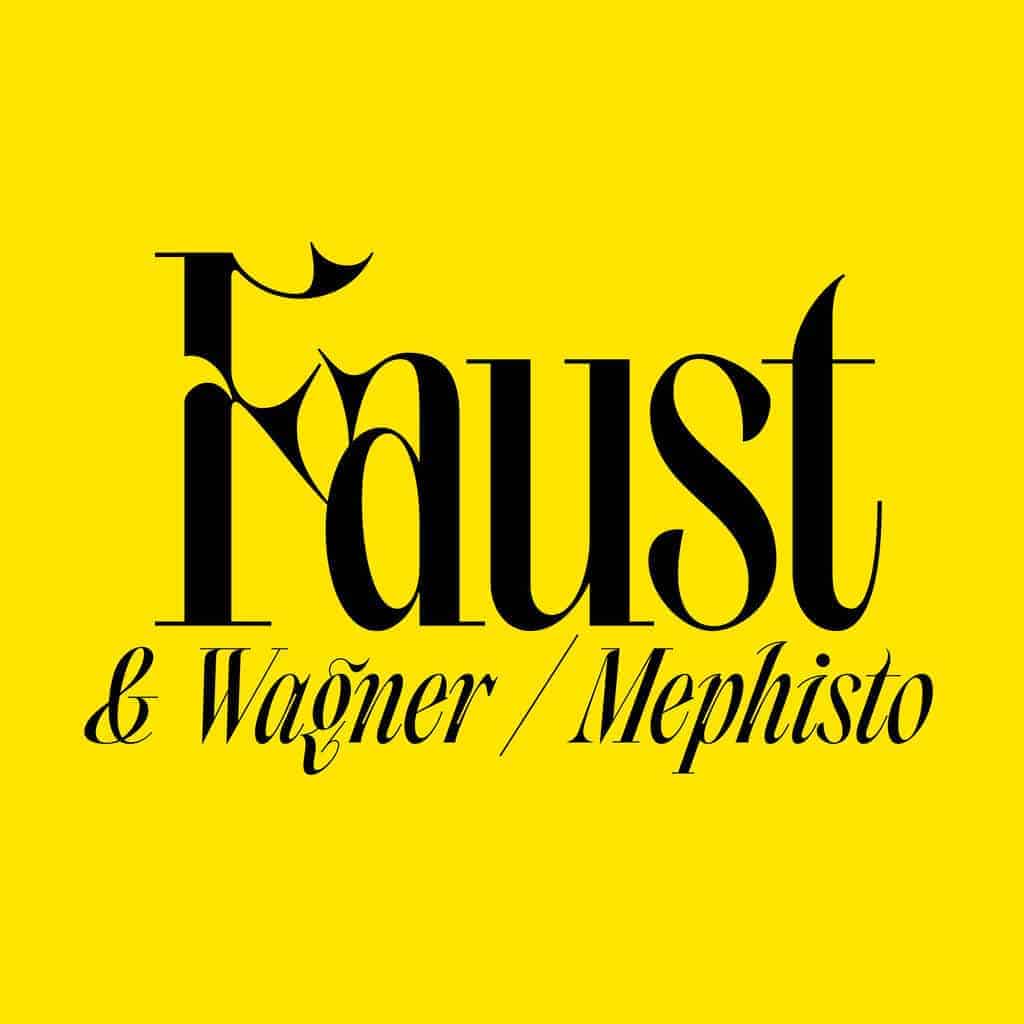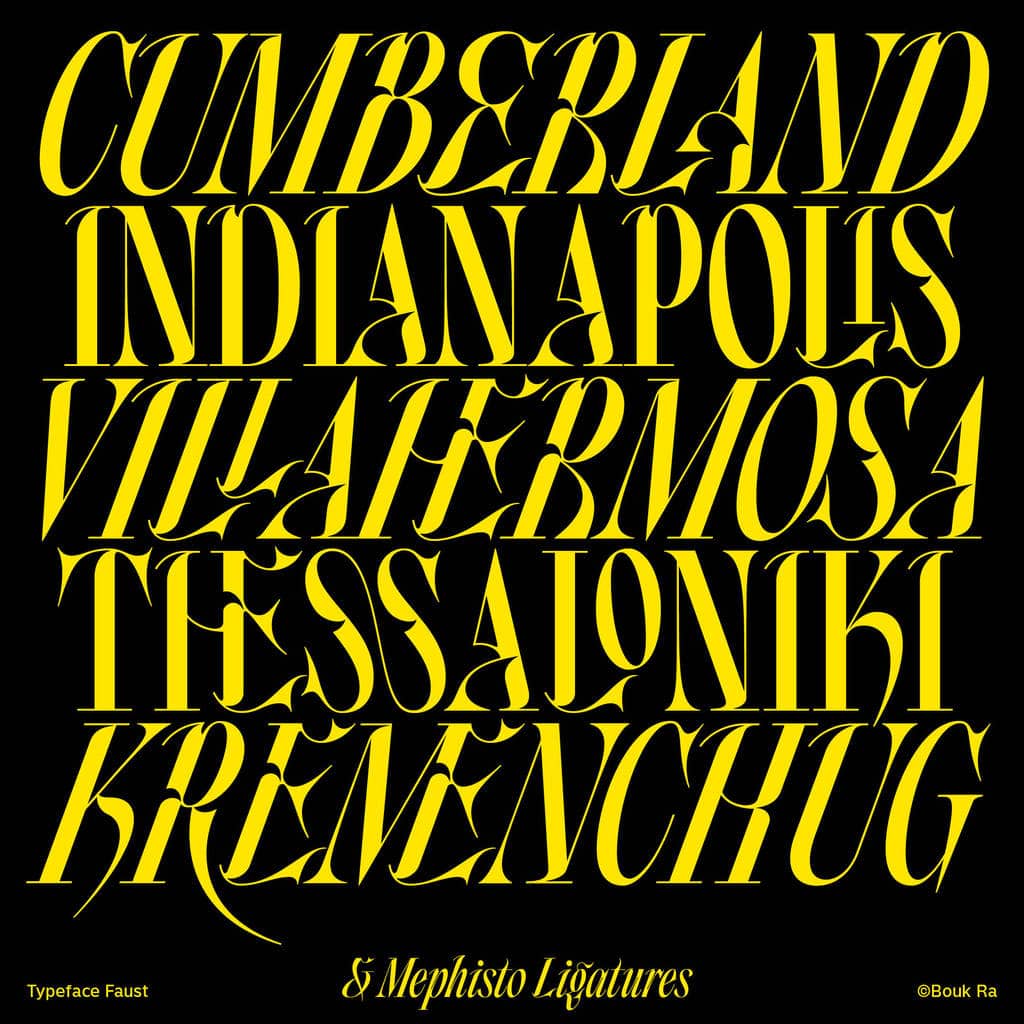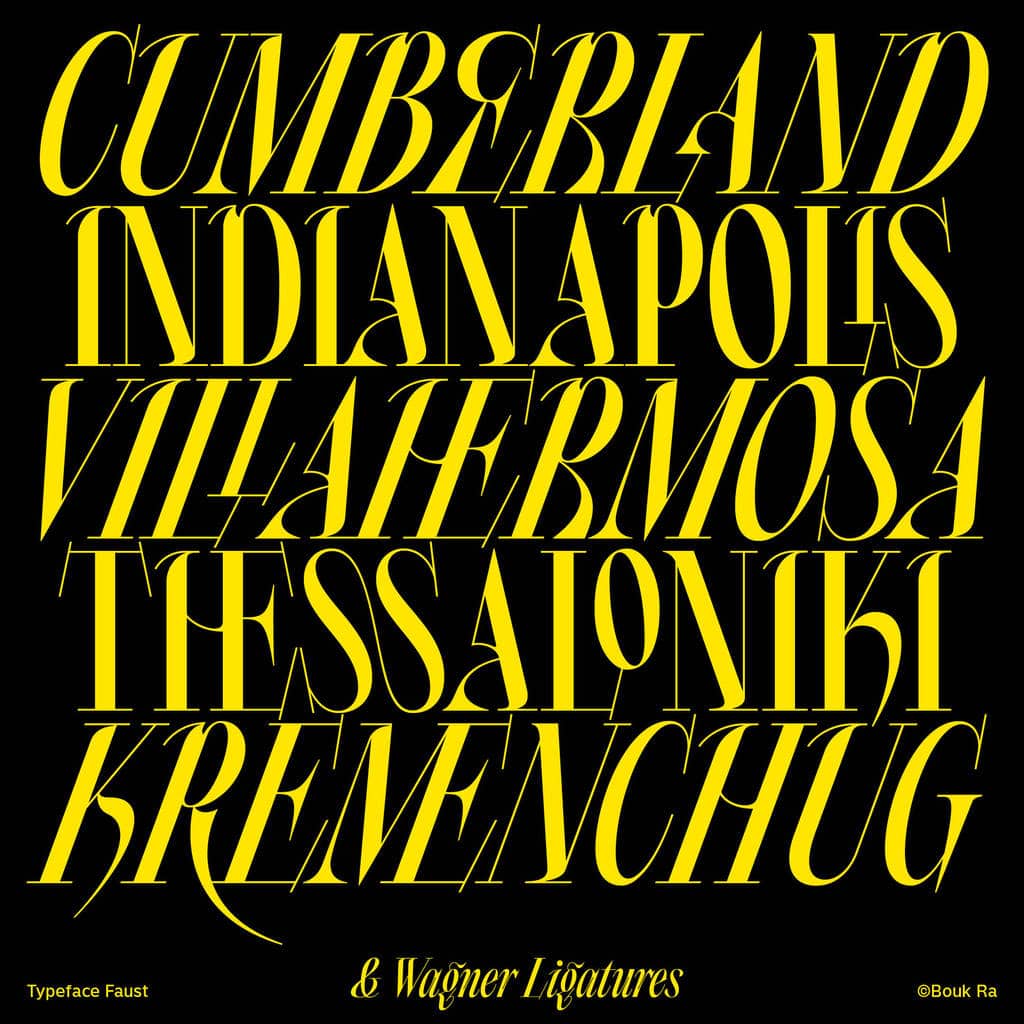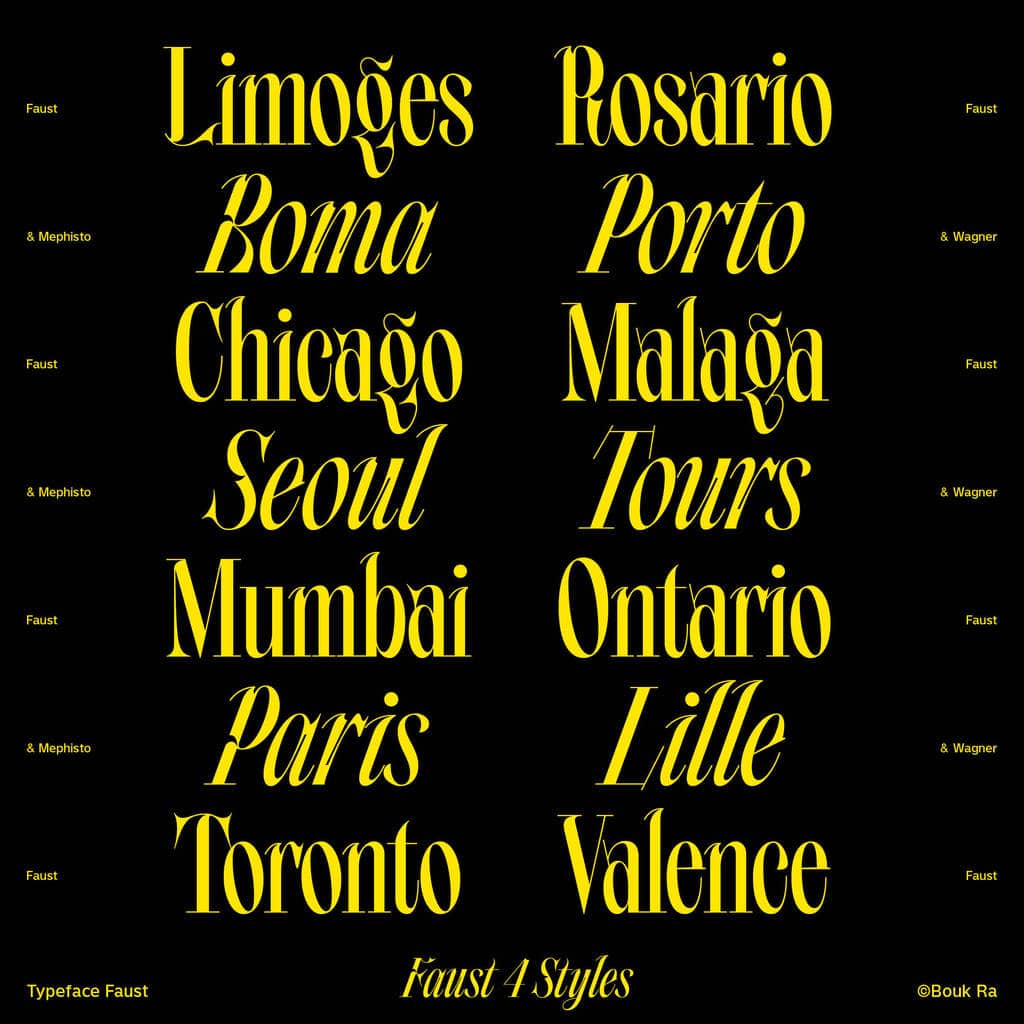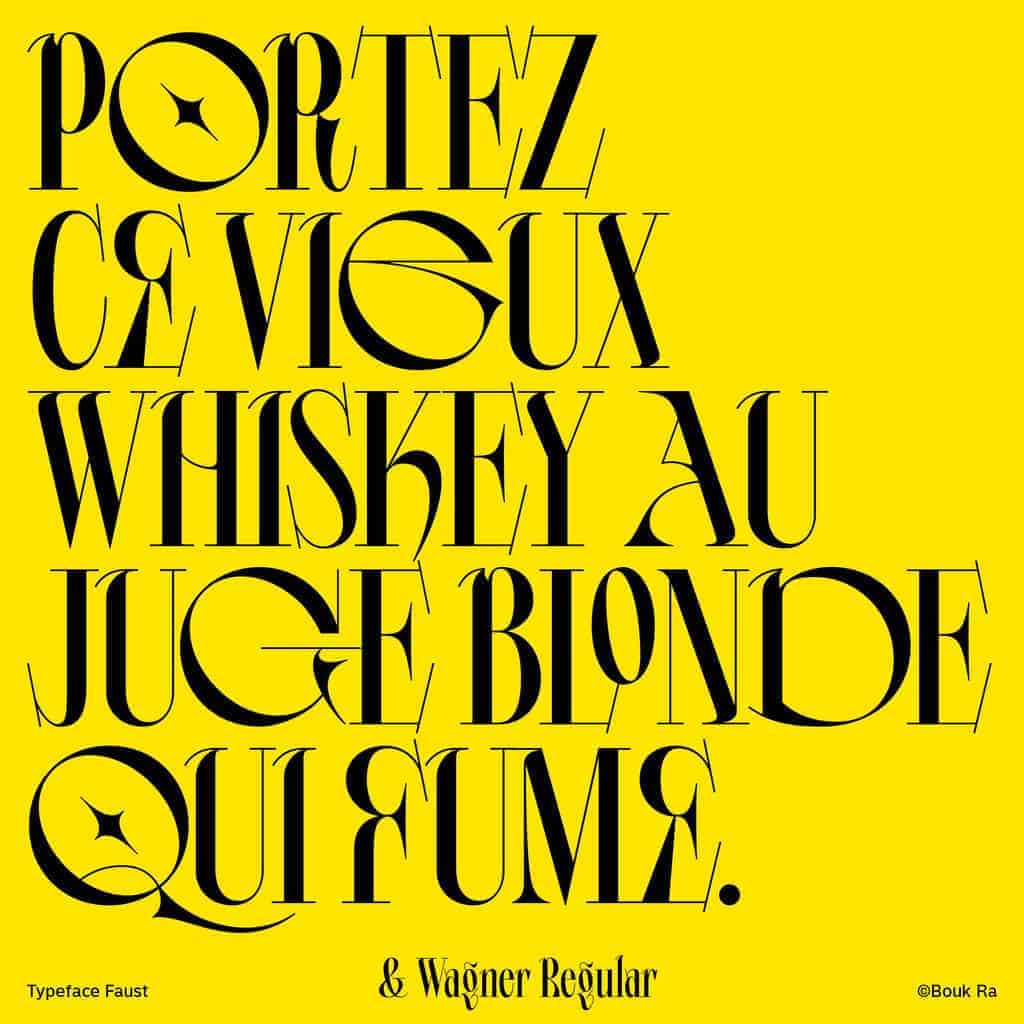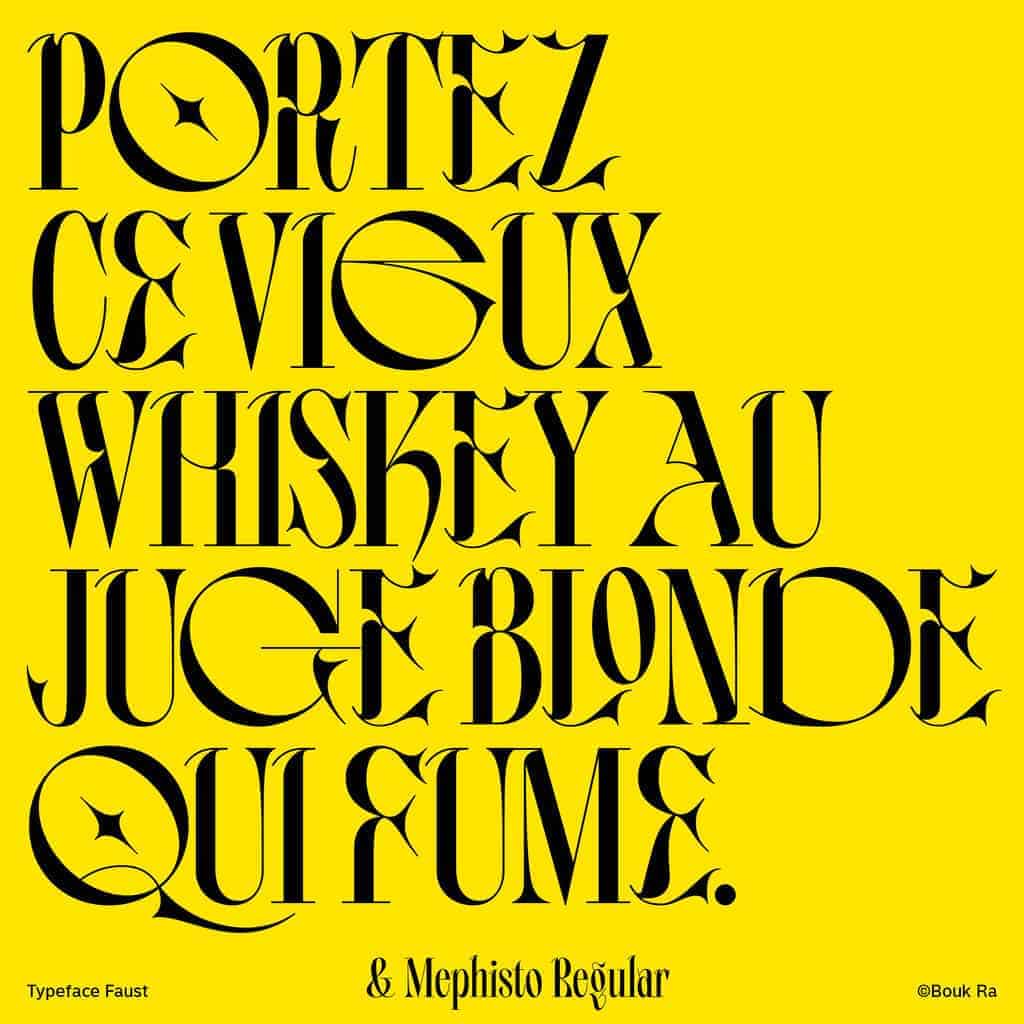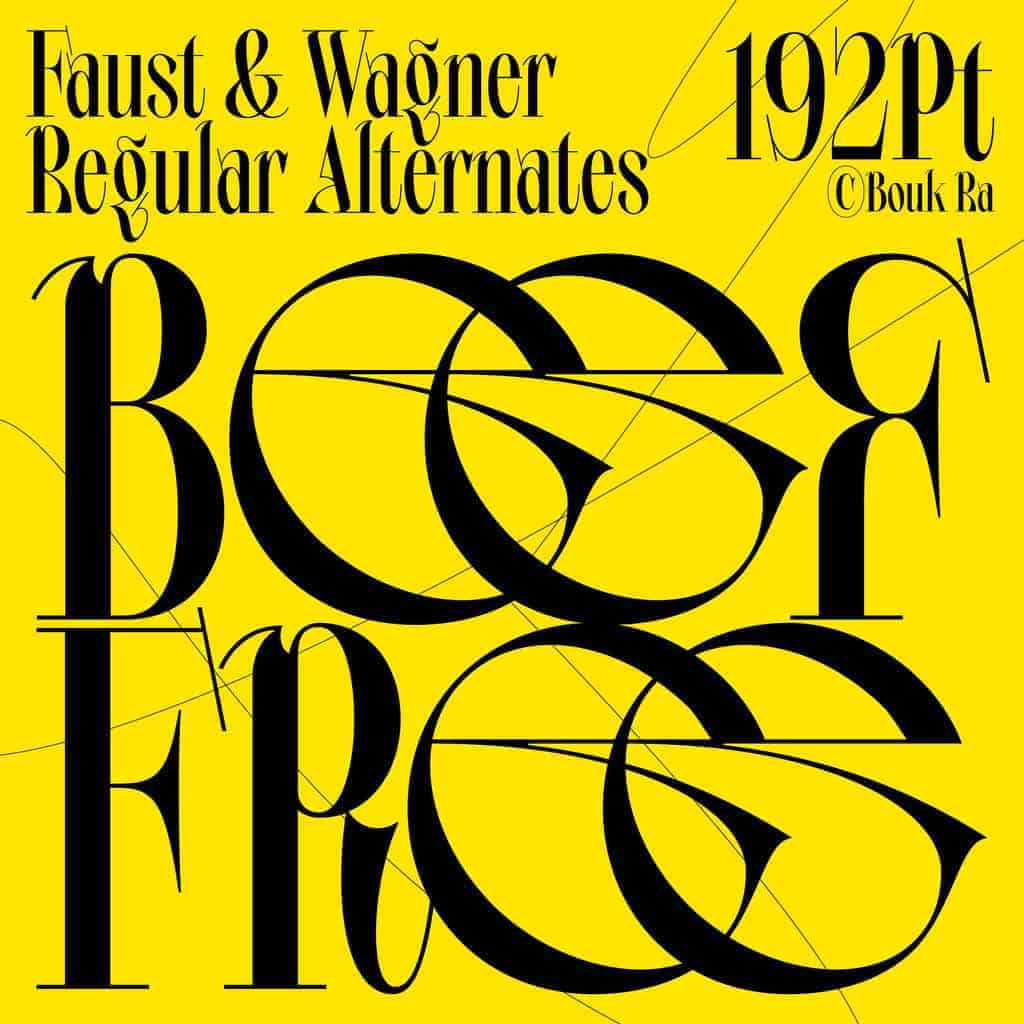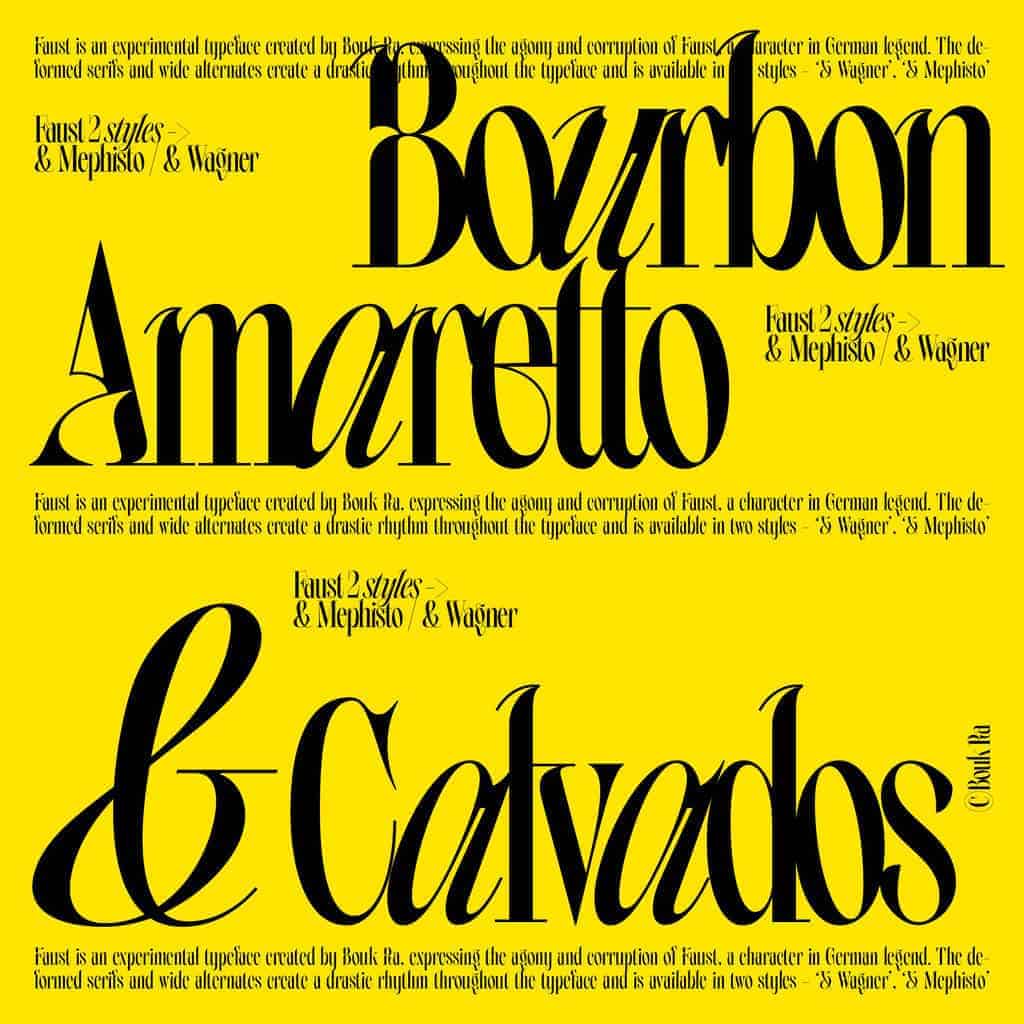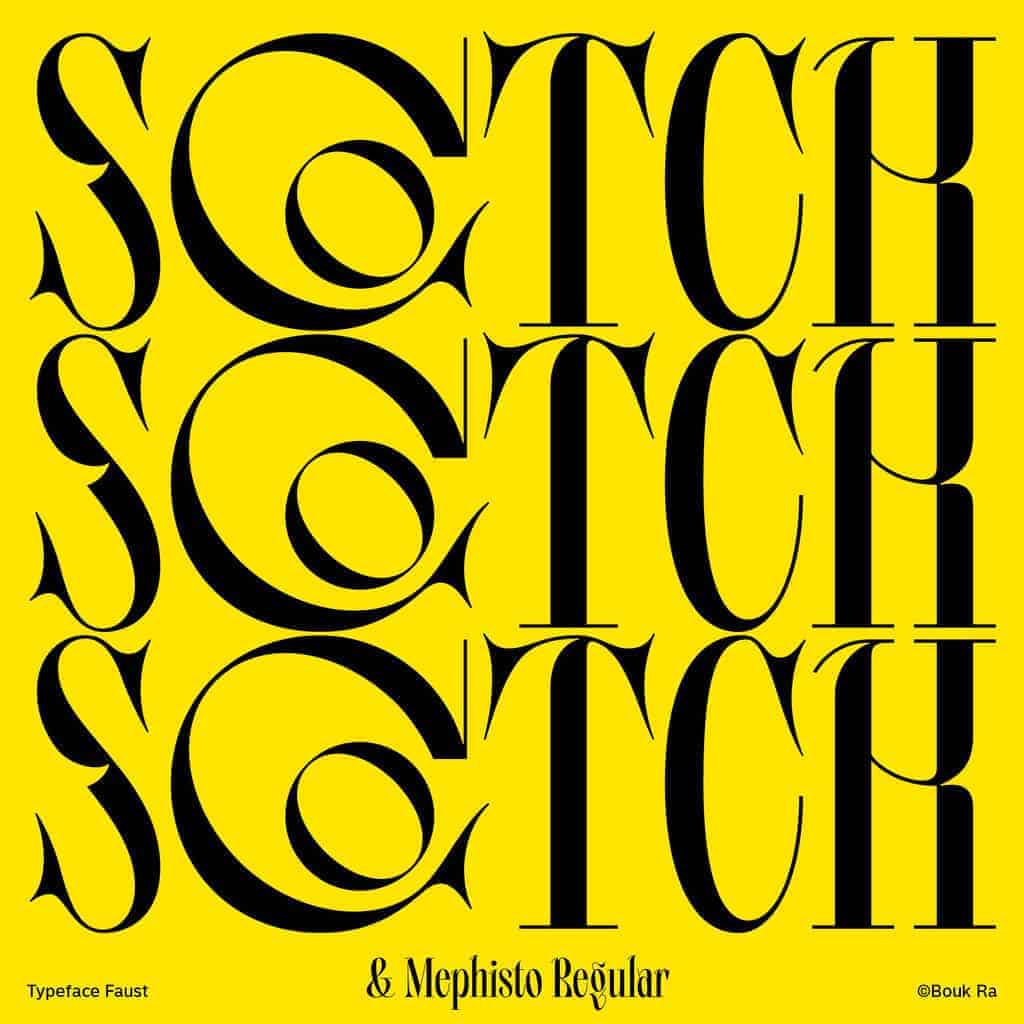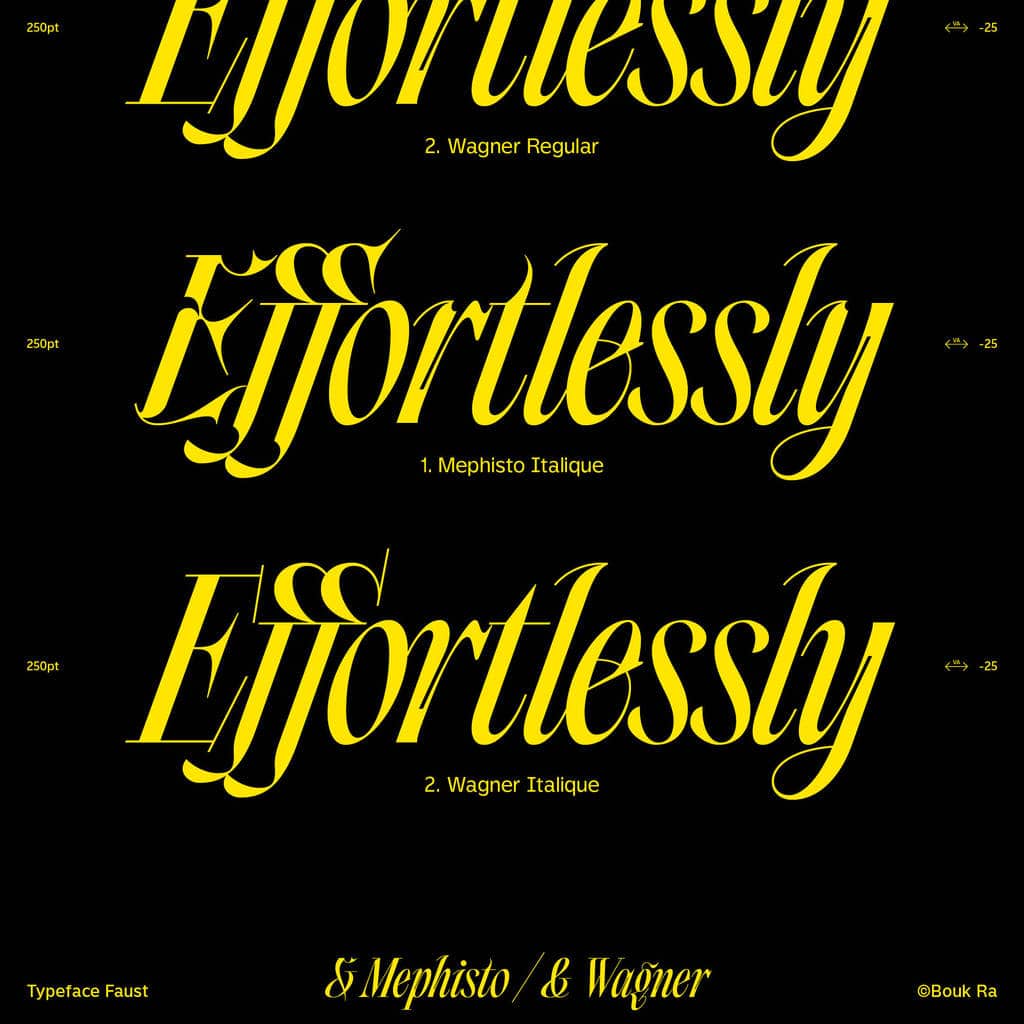
Faust
Faust is an experimental typeface designed by Bouk Ra, capturing the agony and corruption of the legendary German character, Faust. This typeface features deformed serifs and wide alternates, creating a dramatic and intense rhythm throughout. Faust is available in two distinct styles: ‘& Wagner’ and ‘& Mephisto’, each with matching italics, offering versatile options for your design needs.
With its bold and unconventional design, Faust adds a unique and evocative touch to any project, making it perfect for editorial work, posters, branding, and other creative applications. Let Faust's haunting and expressive character bring a touch of legend to your typography.